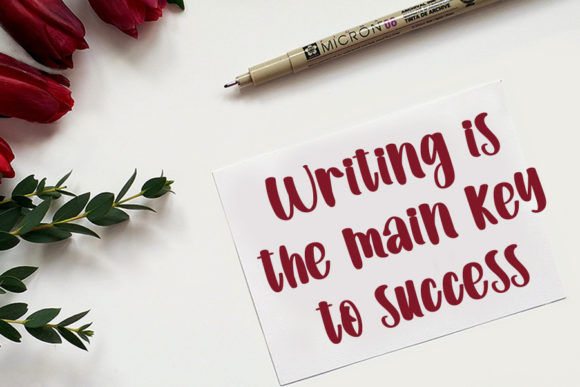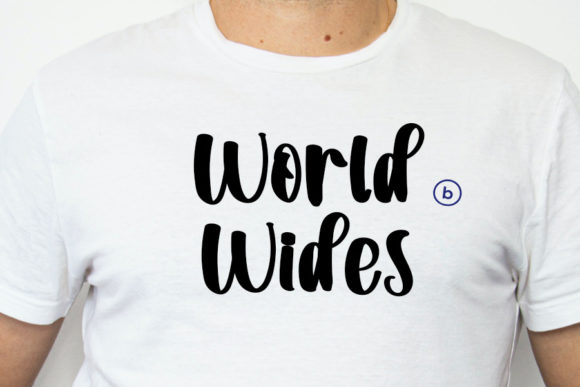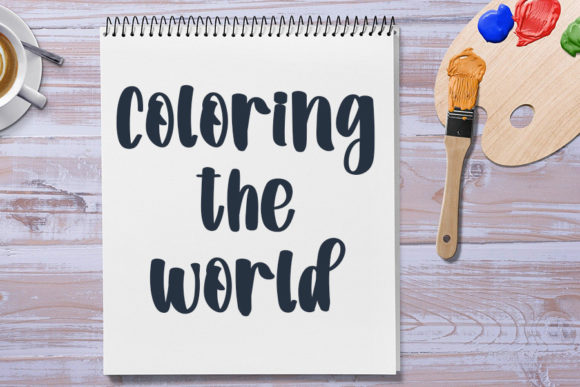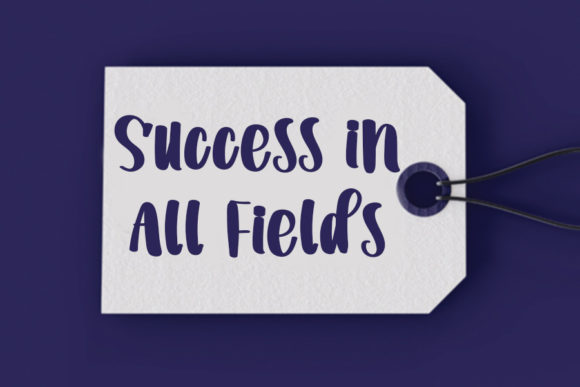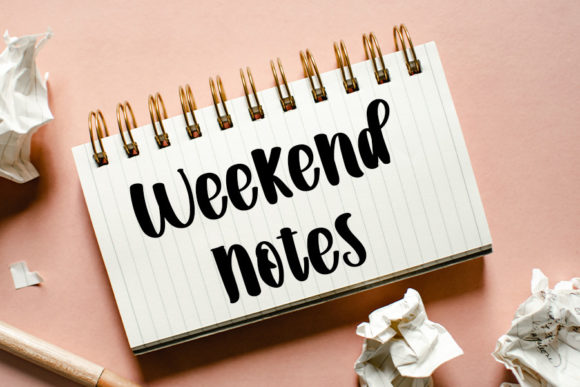
Have you ever sat staring at a blank canvas, struggling to bring your creative vision to life? You’ve got a concept, but it’s just missing that special something – that je ne sais quoi that makes it truly unforgettable. For designers, finding the right font can be the key to unlocking that elusive magic. And that’s where the Better Pastel Font comes in.
This delicate, elegant, and flowing handwritten font is a game-changer for designers looking to add a touch of whimsy to their work. With its beautiful and well-balanced characters, it’s the perfect match for a wide range of designs. Whether you’re creating a dreamy wedding invitation or a playful children’s book, the Better Pastel Font is sure to make your ideas come alive.
Better Pastel Font Key Features
- Font Family: Better Pastel Font is a collection of 12 pastel-colored fonts, each with its unique character.
- Unique Characteristics: Better Pastel Font features a soft, pastel color palette, subtle texture, and a touch of nostalgia, making it perfect for designs that require a calming and retro feel.
- Character Count: The font includes a wide range of characters, including uppercase and lowercase letters, numbers, punctuation marks, and special characters, making it a versatile choice for various design projects.
Designer Review: Better Pastel Font
I recently had the chance to work with the Better Pastel Font, and here’s my honest review. ✨ One thing that really stands out is the unique blend of soft pastel colors and delicate lines, which makes it perfect for feminine and whimsical designs. The font is also highly customizable, allowing for a range of color options and styles that can be easily adjusted to suit different design needs.
However, there are a few limitations to keep in mind ⚠️. One issue I encountered was with the font’s legibility at smaller font sizes. While it looks beautiful at larger sizes, the letters can become quite blurry and difficult to read when scaled down. Additionally, the font’s design can feel a bit too cutesy or childish for some designs, which may limit its versatility.
- Legibility issues at smaller font sizes
- Design may feel too cutesy or childish for some projects
Overall, I think the Better Pastel Font is a great choice for designers who are looking for a unique and feminine font option. While it may have some limitations, the benefits of its customizability and beautiful design make it a worthwhile addition to any designer’s toolkit.
Getting the Most Out of Better Pastel Font
To get the most out of the Better Pastel Font, try combining it with other design elements, such as pastel-colored backgrounds, watercolor textures, or floral patterns.
Experiment with different font sizes and colors to create a unique and visually appealing design.
The Better Pastel Font is ideal for creating designs that require a soft, feminine touch, such as:
Comparison: Great Vibes has a more refined and polished feel compared to Better Pastel Font, which is more playful and whimsical.
Q: Are there any recommended font sizes and line heights for the Better Pastel Font?
For optimal readability, we recommend using font sizes between 12pt and 24pt and line heights between 1.2 and 1.5 times the font size. This will ensure the text remains clear and legible, even at smaller sizes.